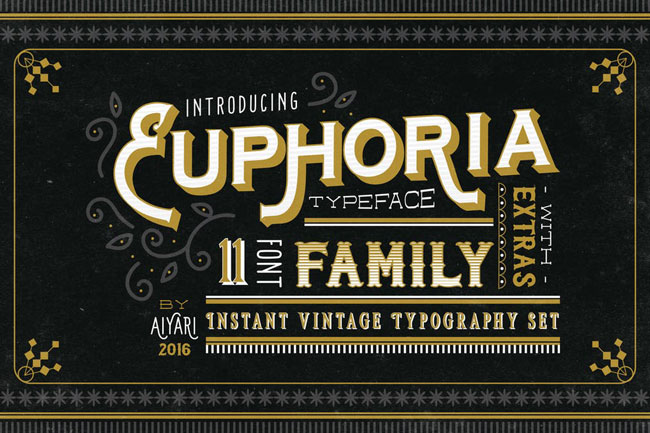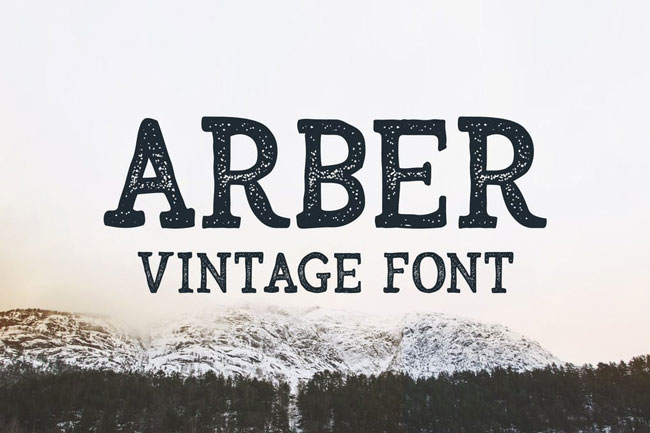
Awesome Vintage Style Fonts Download In 2023: If you are planning to work on some vintage-inspired project, you need proper fonts for that. In this list, you’ll find the very best vintage typeface fonts that you can use for postcards, websites, mobile apps, t-shirts, logos, badges, and branding identity. It’s all up to you.
There’s a certain style of font that can be called “vintage.” This usually refers to fonts that were popular in the early to mid-20th century. This can be a bit subjective, but many people believe that these fonts are beautiful, stylish, and timeless.
- Qwerly Vintage Font
- Allergic – Victorian Style Vintage Font
- Hostel Vintage – Vintage Script Font
- Fendesert – Vintage Stamp Font
- Vintage Style Bold Script Font
- Happie Vintage – Psychedelic Display Font
- Legendarie – Handcrafted Vintage Font
- Heritage Vintage Font
- Bremin – Bold Serif Vintage Font
- Zailander – Vectorian Vintage Font
- Matrole – Vintage Serif Display Font
- Middle Class Script Vintage Font
- Coconut – Decorative Vintage Display Font
- Authentic Vintage Style Layered Fonts
- Saltino – Handwritten Vintage Brush Font
- Dories – Unique Vintage Display Font
- Rising Star – Modern Vintage Font
- Euphoria – Vintage Font Family Set
- Mutiara Vintage Style Font
- The Crow – Creative Vintage Style Font
- Morning Glory Vintage Style Font
- Mermaid Fashioned Vintage Typeface Font
- Vultron – Inline Vintage Style Font
- Krakatao – Creative Vintage Font
- Evolve – Retro Vintage Style Font
- Arber – Brush Vintage Font
- Flamingo – Unique Vintage Style Font
- Kohm – Vintage Serif Font
- Fibre – Handwritten Vintage Font
- Mandatory – Vintage Font Duo
- Fright Night – Vintage Horror Font
Qwerly Vintage Font
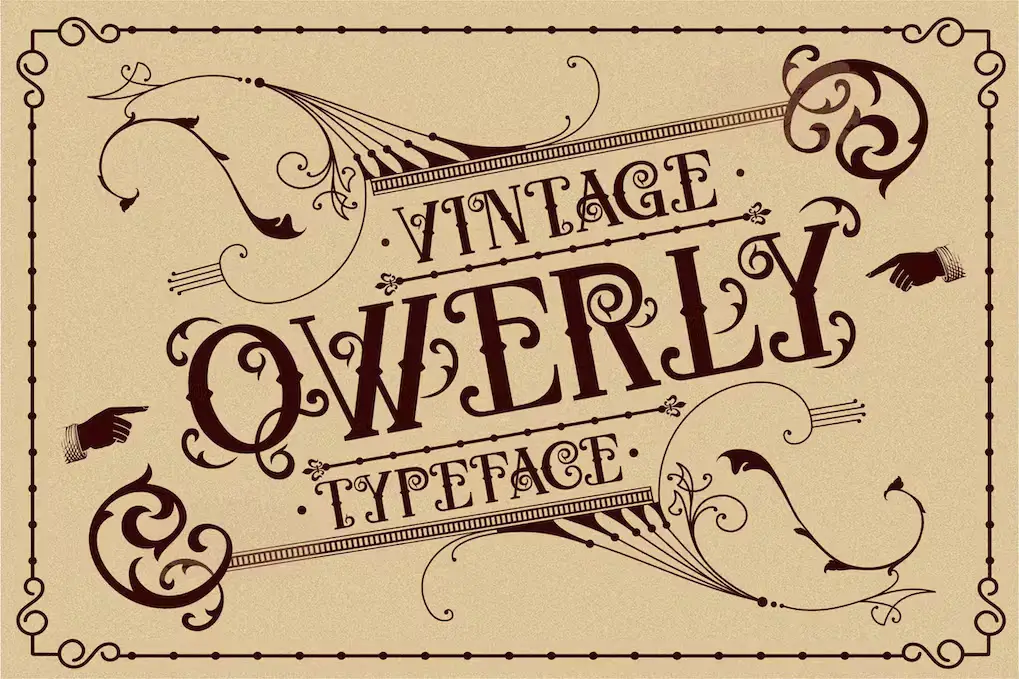
Introducing Qwerly Fonts: Embrace the nostalgia of yesteryears with this brand-new font that exudes a vintage charm reminiscent of old newspaper headlines, classic posters, and the aesthetic of the 1900s. Whether you’re designing covers, labels, posters, logos, or branding materials, Qwerly Fonts adds a touch of timeless elegance to your projects. Let your creativity flow with this font that brings a vintage design feel to your work.
Allergic – Victorian Style Vintage Font
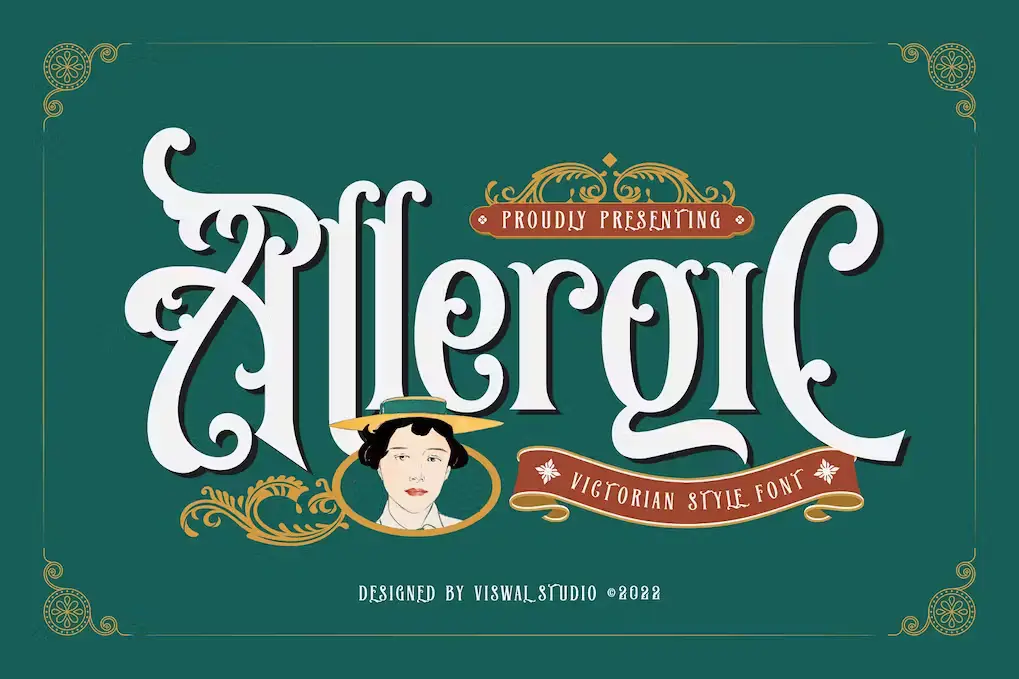
Allergic Victorian Style Vintage Font is a versatile typeface suitable for badges, labels, logos, branding, magazines, posters, and more. It includes uppercase and lowercase characters, numerals, punctuation, multilingual support, and Opentype Features. This font complements other fonts, enabling you to create exceptional designs.
Hostel Vintage – Vintage Script Font
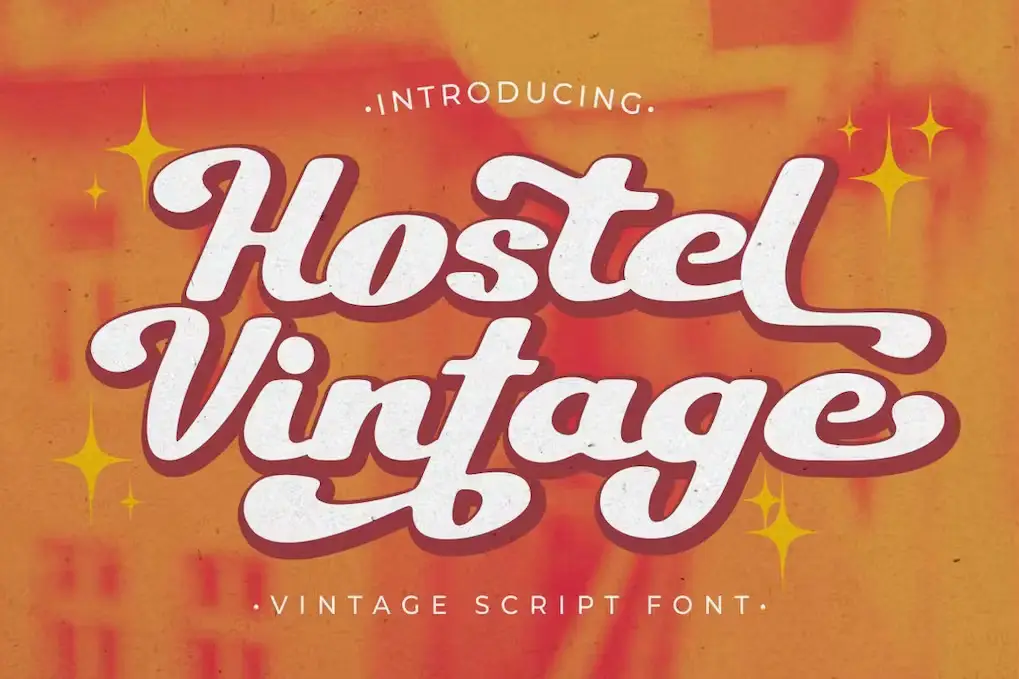
Introducing “Hostel Vintage,” a vintage font with a modern twist, offering 534 glyphs and 359 alternates for versatile lettering. This font is perfect for logos, headings, posters, social media, and more. It also supports multiple languages, making it a versatile choice for designers worldwide.
Fendesert – Vintage Stamp Font
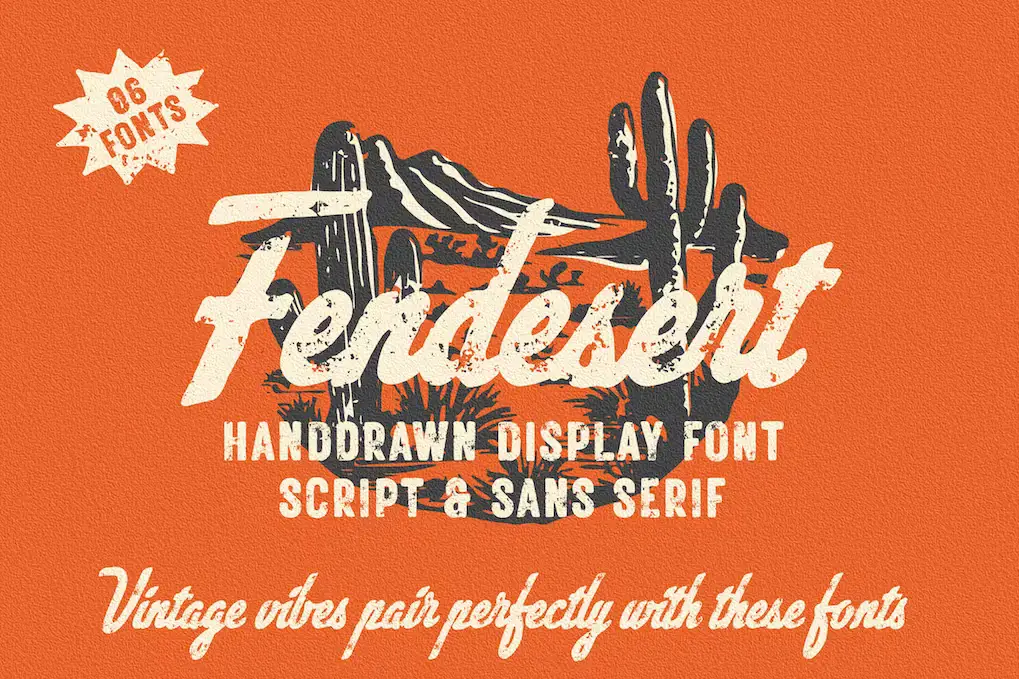
“Fendesert” is the ultimate vintage font duo, featuring a stylish script and clean sans-serif font in various styles, along with 20 hand-drawn Western illustrations. Ideal for logos, branding, posters, and more, it adds a vintage charm to your projects, delivering a classic and timeless aesthetic.
Vintage Style Bold Script Font
Vintage Style is a distinctive and robust script font characterized by its elegant curves and rounded design. With a unique vintage charm, this font is an ideal choice for branding projects. When incorporated into your creative concepts, “Vintage Style” breathes life into them, giving them a timeless and captivating allure.
Happie Vintage – Psychedelic Display Font
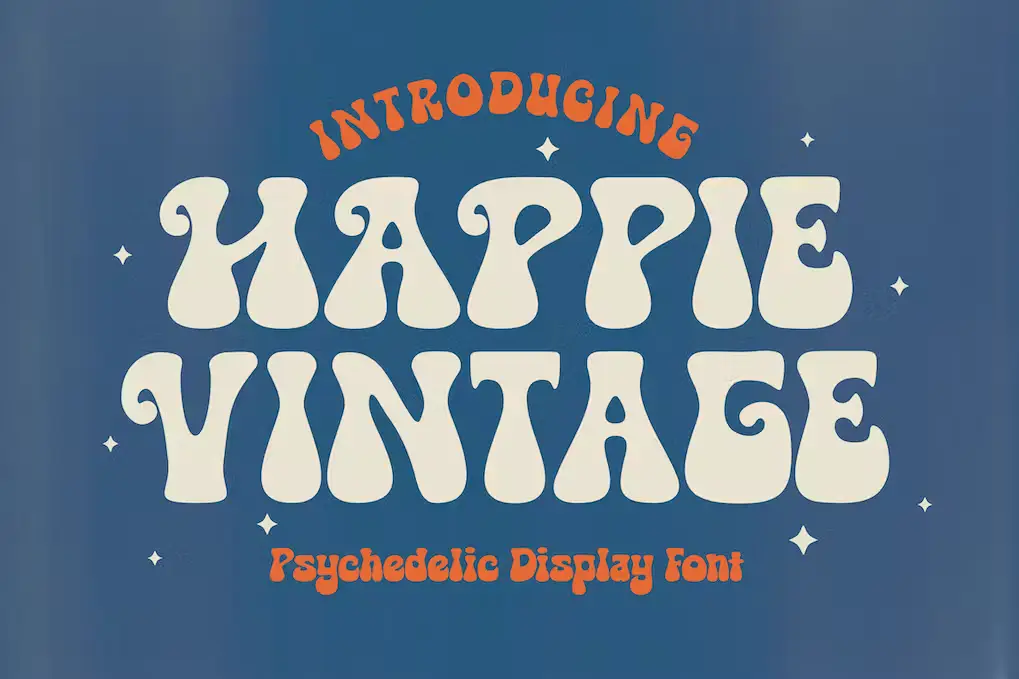
HAPPIE VINTAGE is a playful and nostalgic font inspired by 70s aesthetics, blending psychedelic elements and groovy vibes. Ideal for logos, invitations, labels, magazines, and more, it captures the essence of retro charm.
Legendarie – Handcrafted Vintage Font
A handcrafted vintage font with a calligraphy style, You can use this font on cards, branding materials, quotes, posters, and more.
Heritage Vintage Font
Bremin – Bold Serif Vintage Font
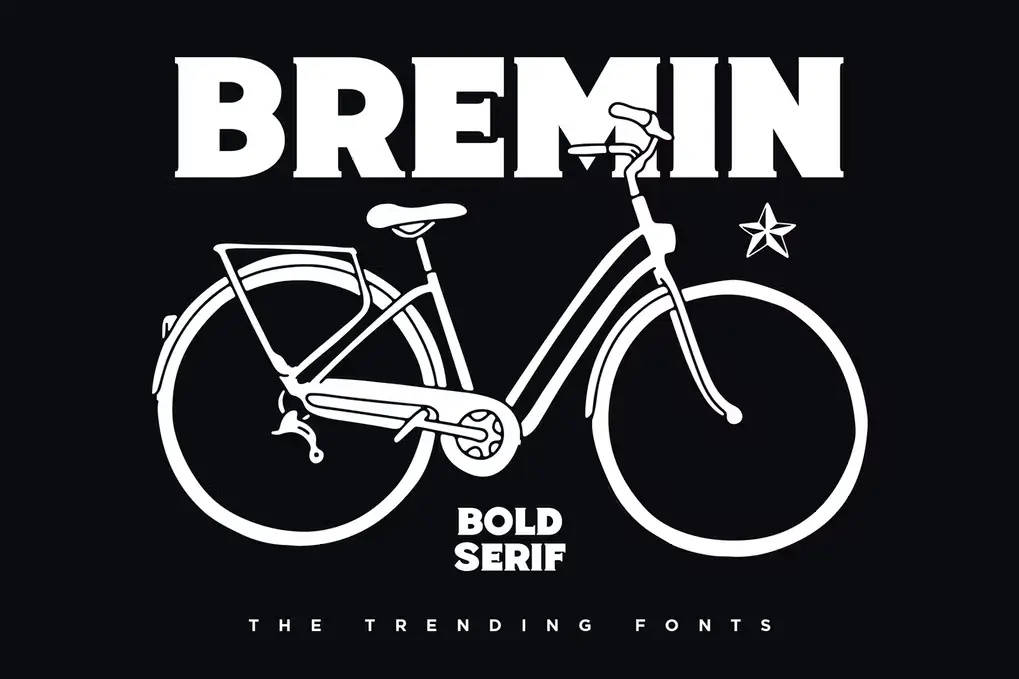
A vintage bold serif typeface font with an all-caps style and English language support.
Zailander – Vectorian Vintage Font
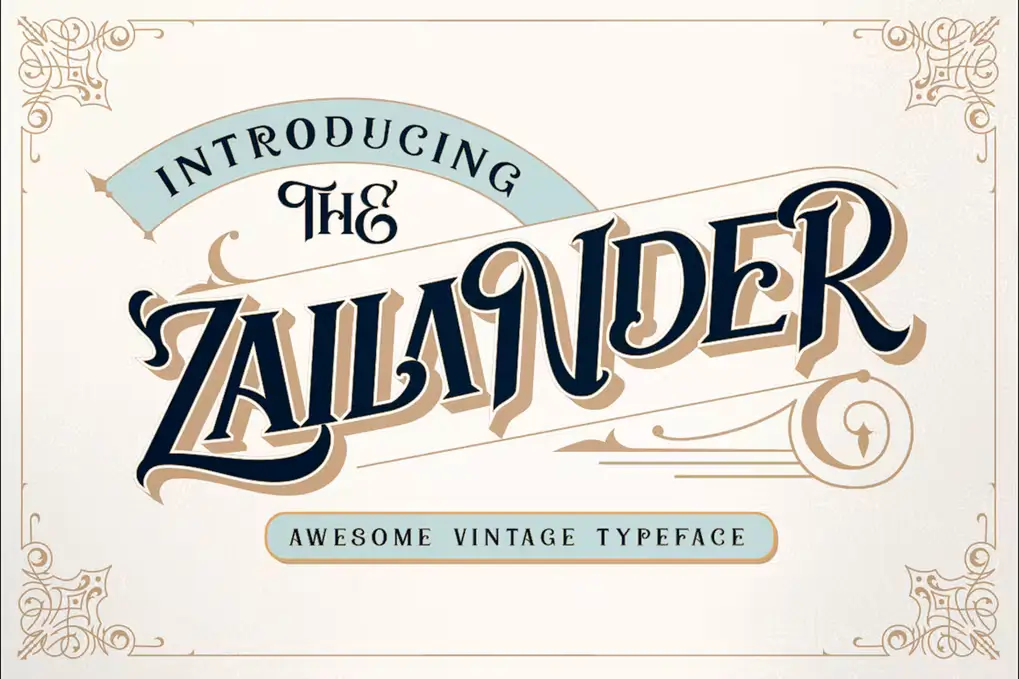
Zailander Vectorian Vintage Font, Perfect for invitations like greeting cards, branding materials, business cards, quotes, posters, and more!
Matrole – Vintage Serif Display Font
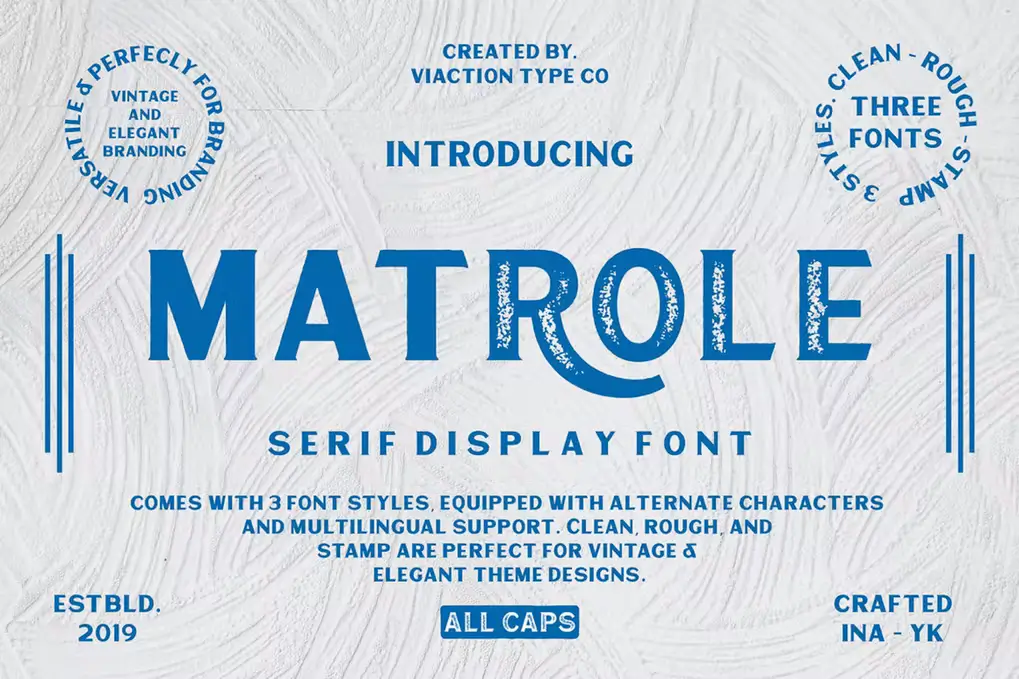
Matrole is a vintage serif display font with 3 styles clean, rough & stamp.
Middle Class Script Vintage Font
Middle-Class Script inspired by hand-drawn lettering style and logotype with layered style. This font is perfect for Logotype, Letterhead, Poster, Apparel Design, labels and etc.
Fright Night – Vintage Horror Font
A vintage horror typeface from Great Scott. It got thrills, chills, and diacritics! With inspiration from vintage horror posters and bold geometric types Fright, Night is here to put shills on your next project. Fright Night comes in several styles and can be combined to create a lot of different looks.